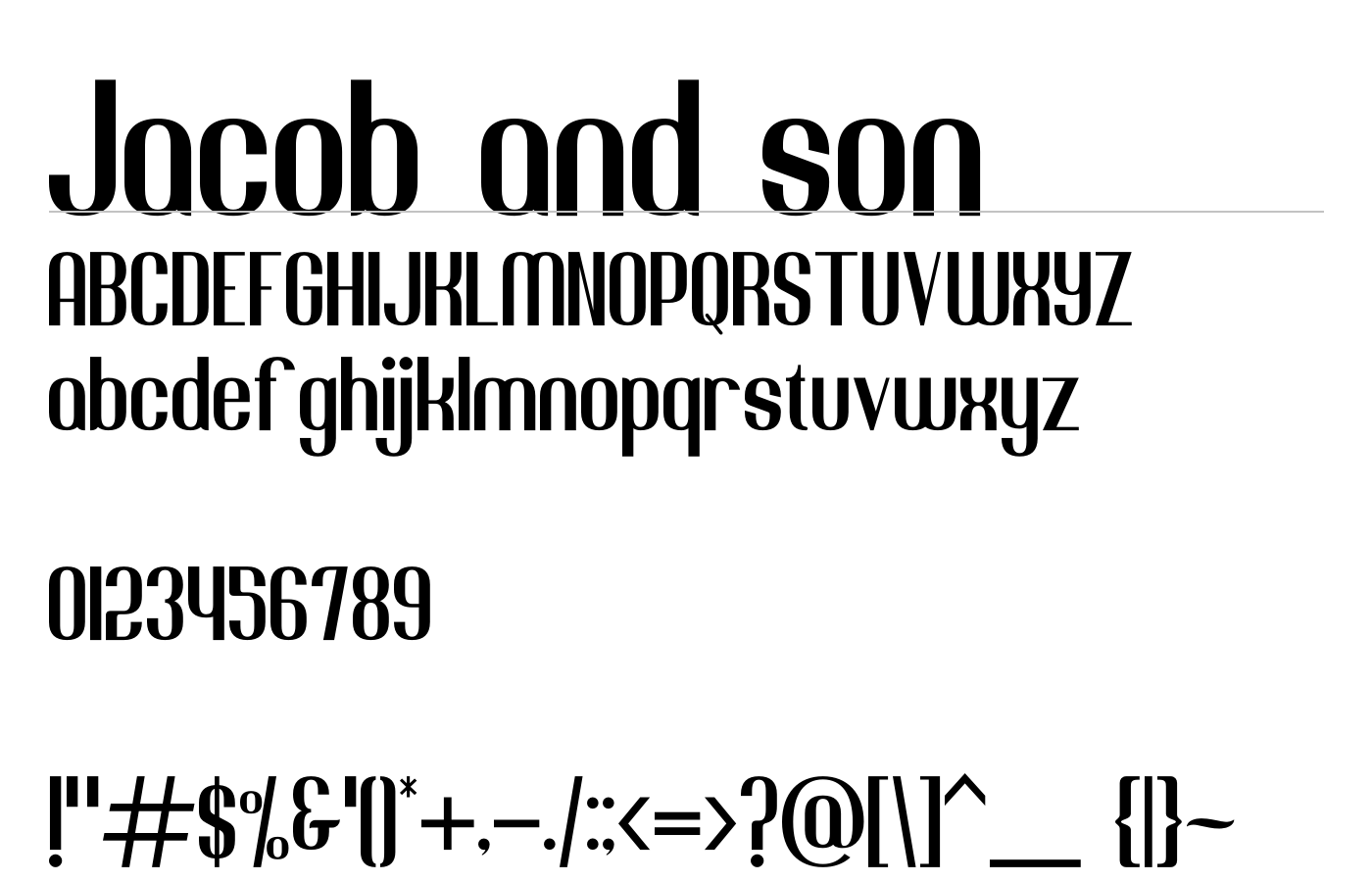
Jacob And Son is a tall, condensed sans serif font with a modern, geometric feel highlighted by its high contrast between thick and thin strokes. Its sleek, narrow letterforms and unique details, like the curved tails on certain letters, give it a sophisticated yet striking personality, making it ideal for fashion branding, headlines, and stylish editorial designs. This font works well where elegance meets contemporary sharpness, adding a distinct and memorable character to any design.
Jacob And Son Font
About Jacob And Son Font